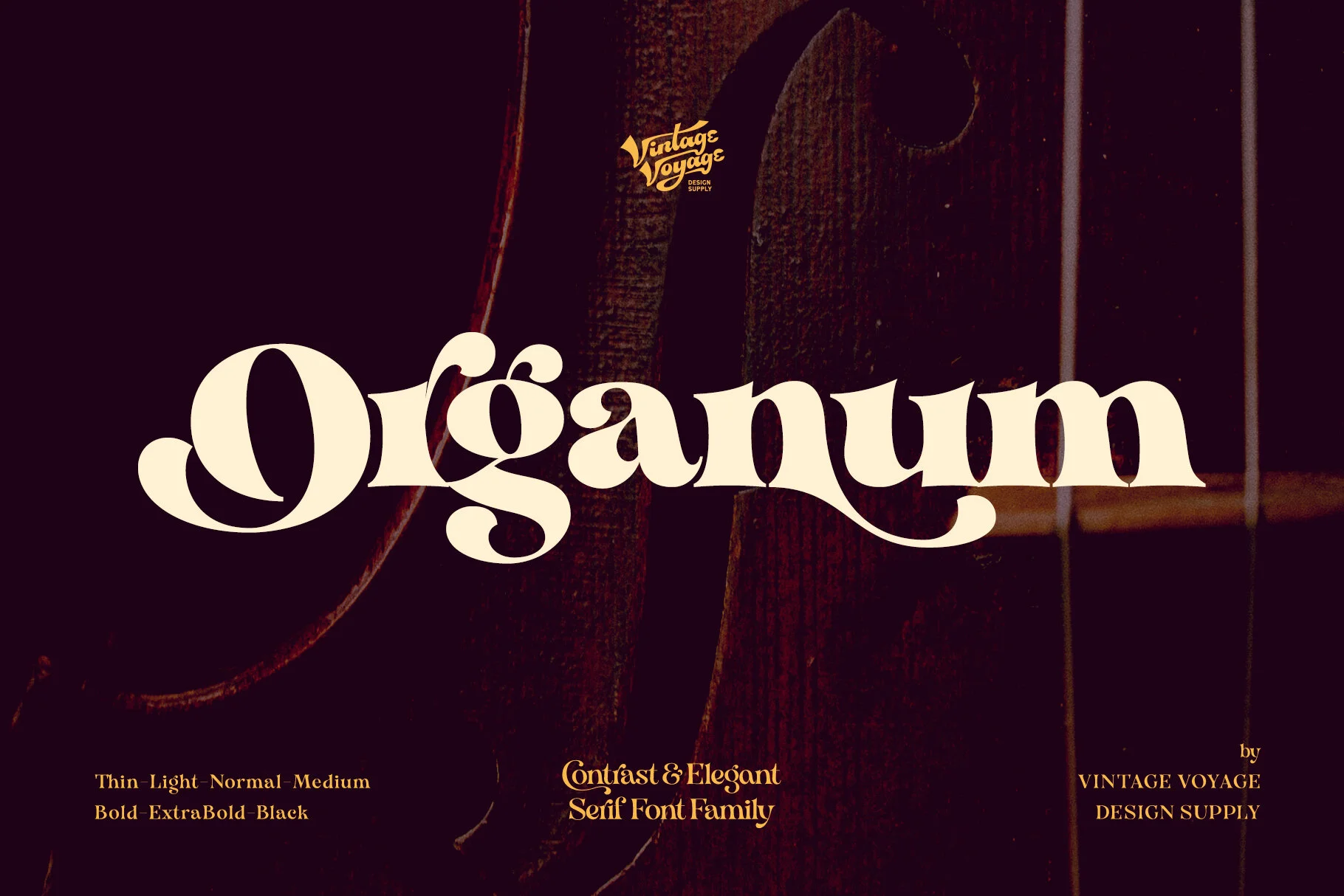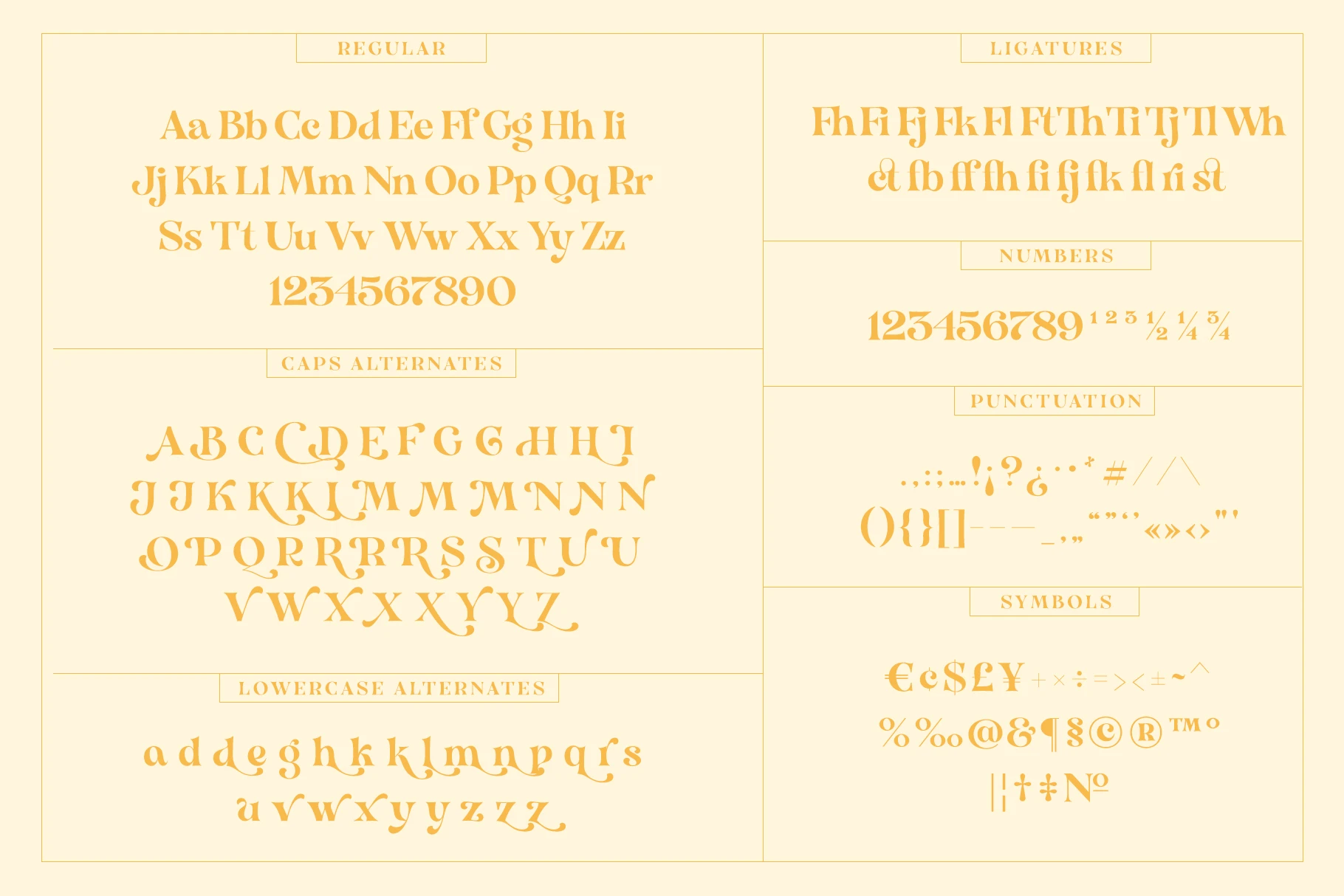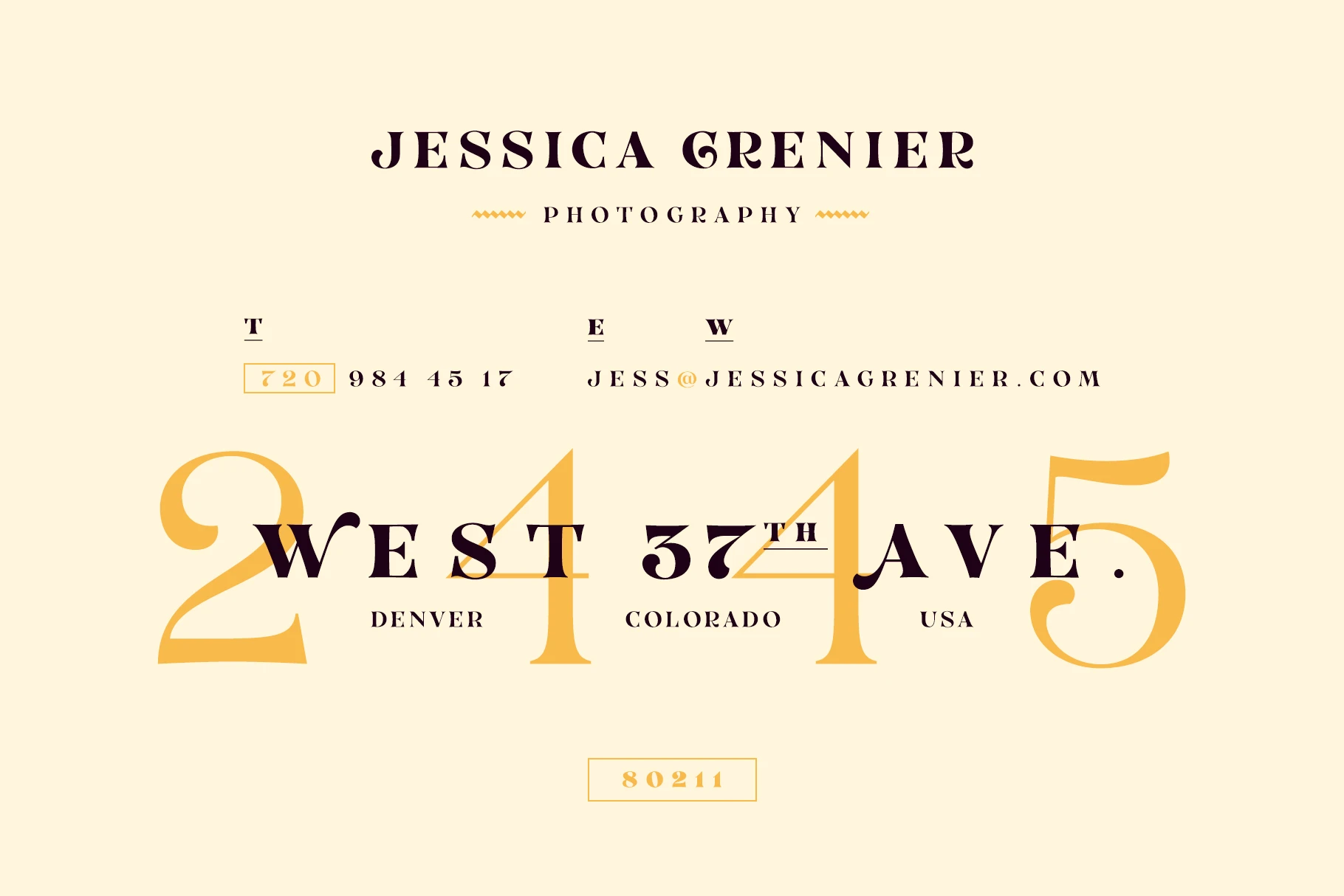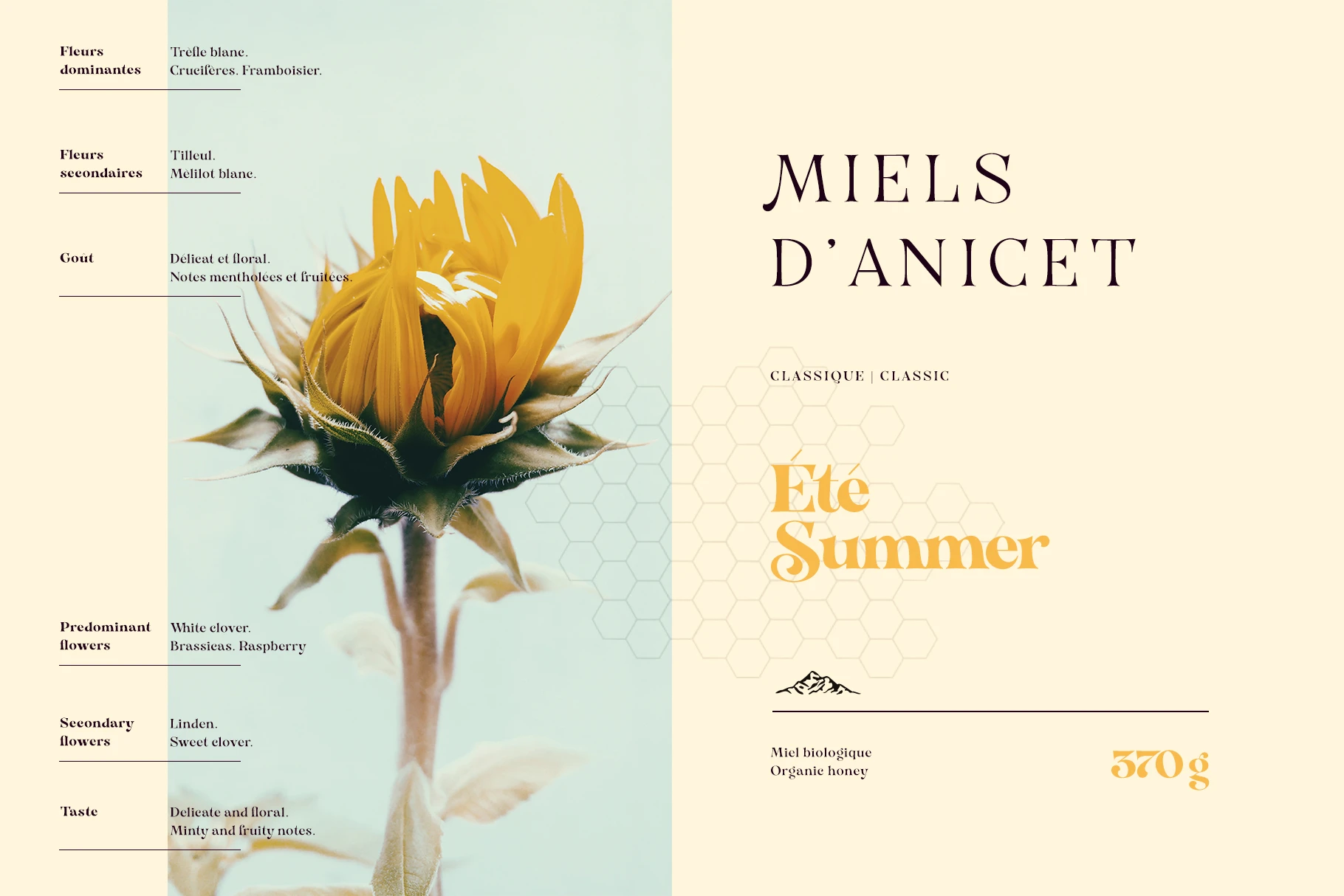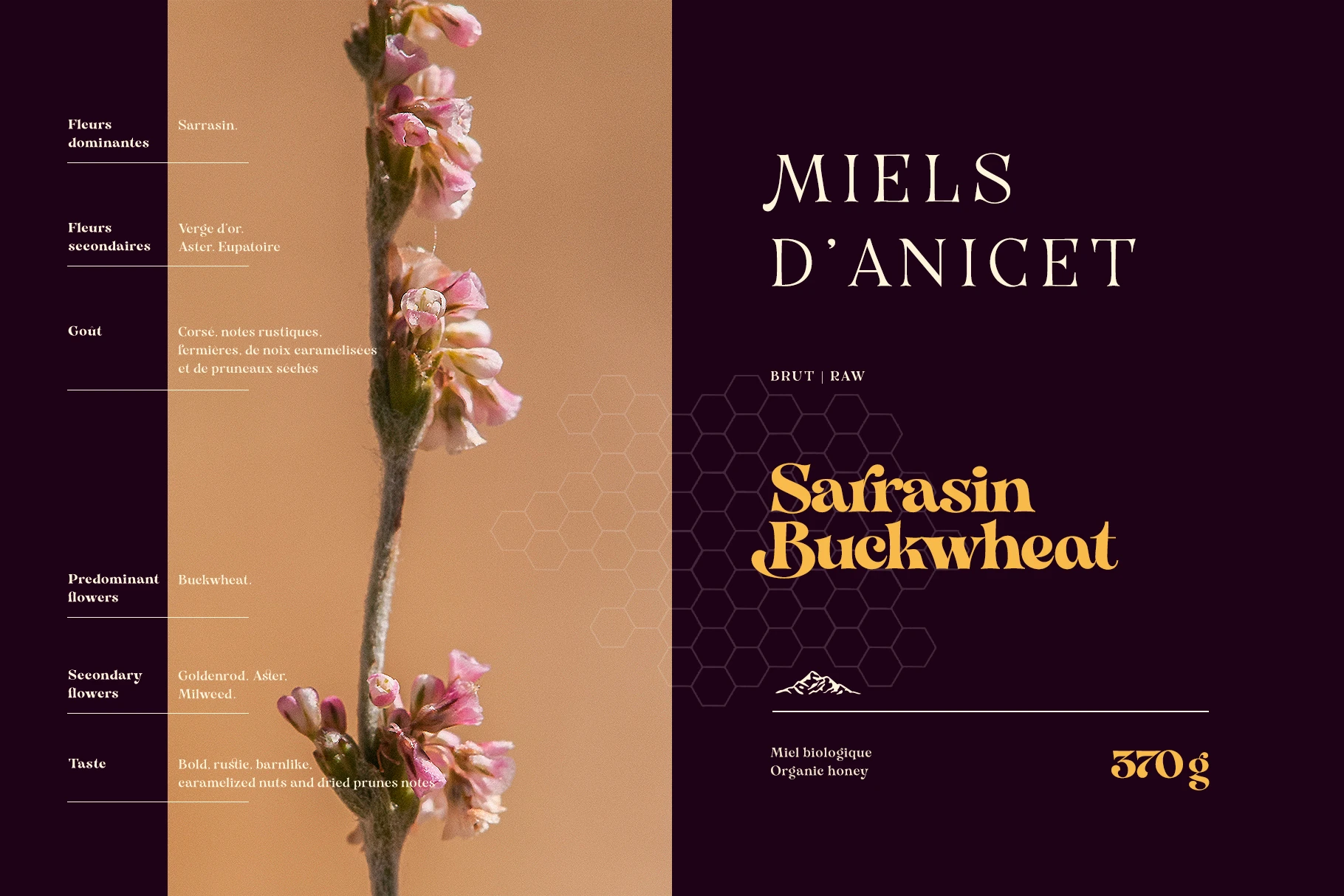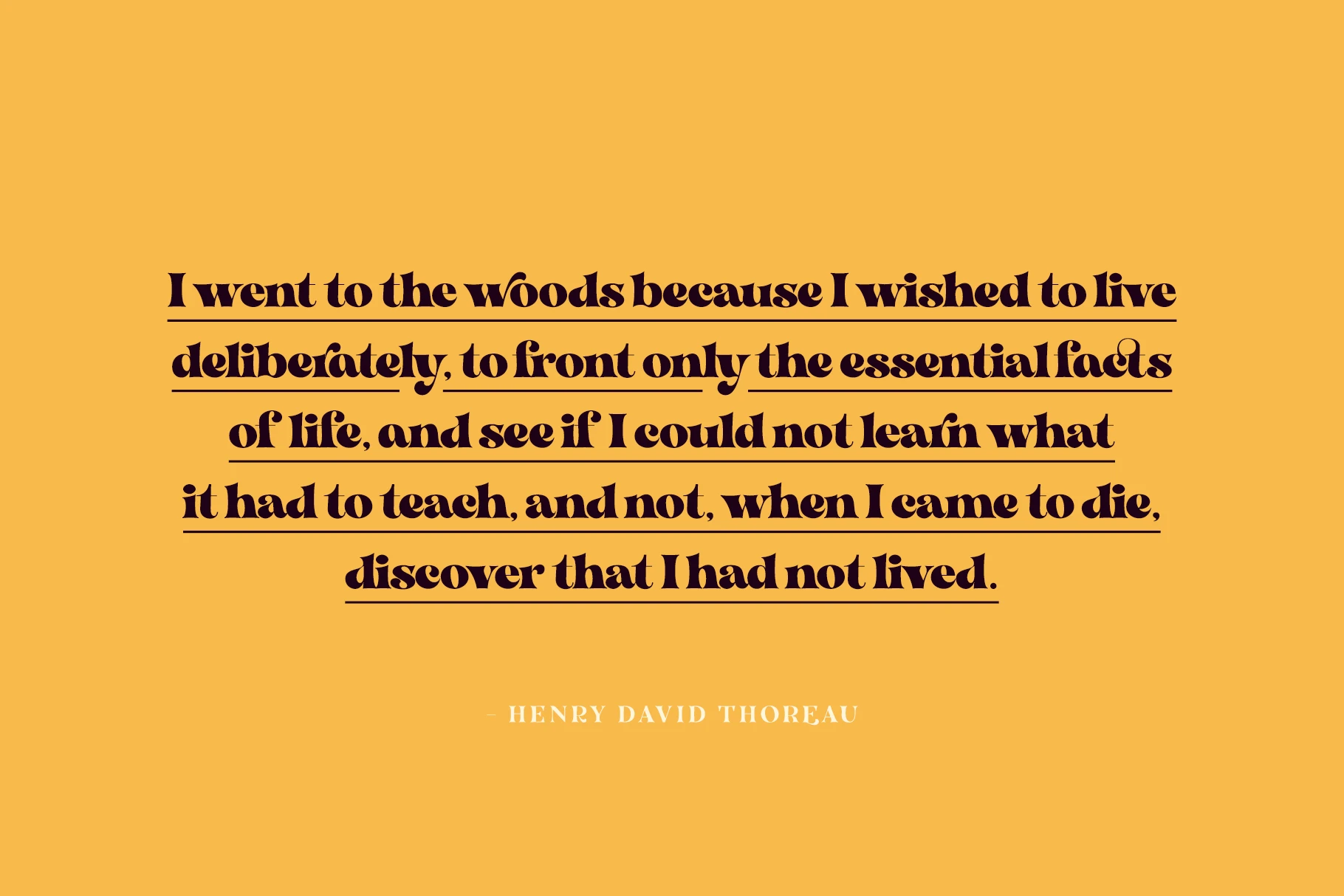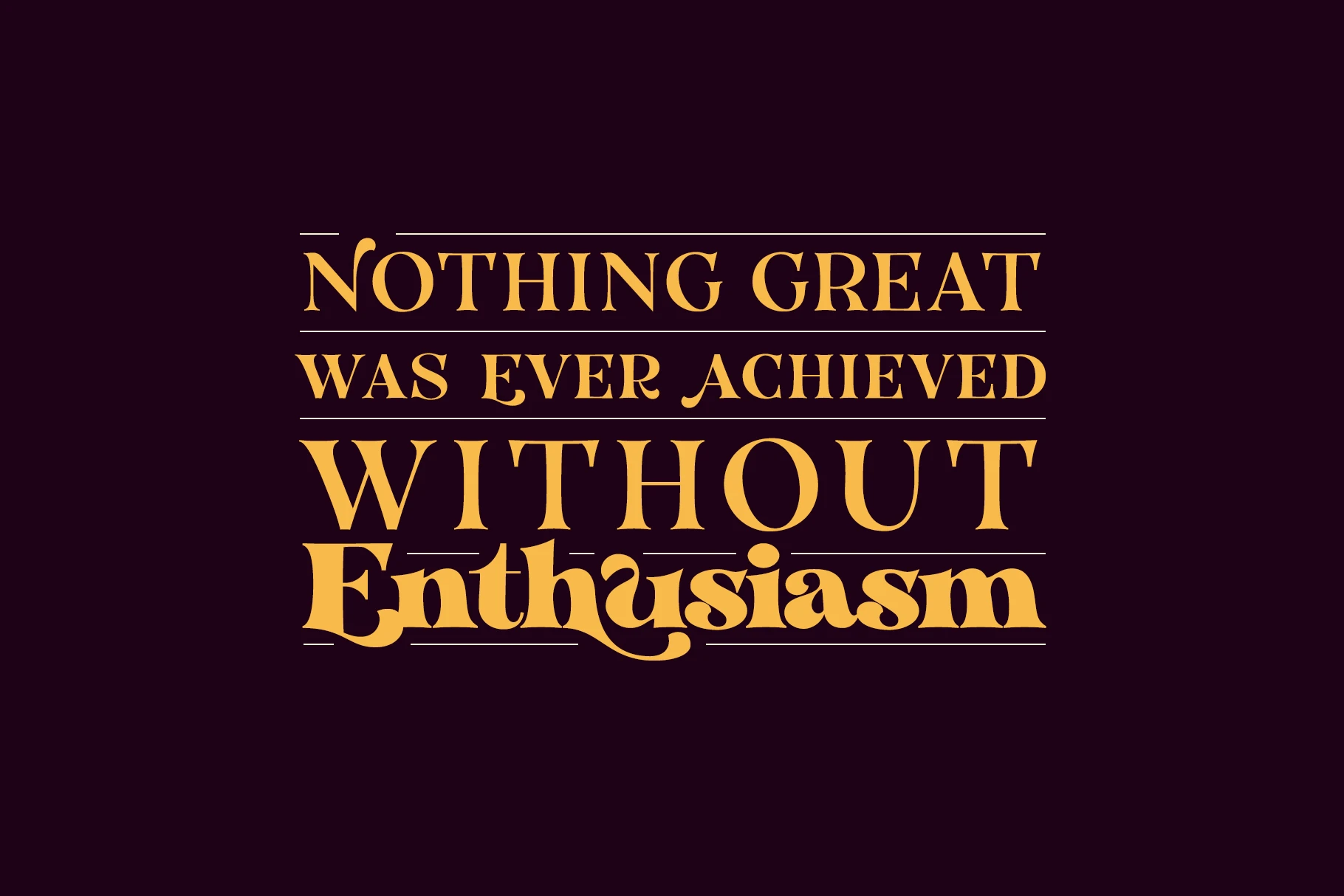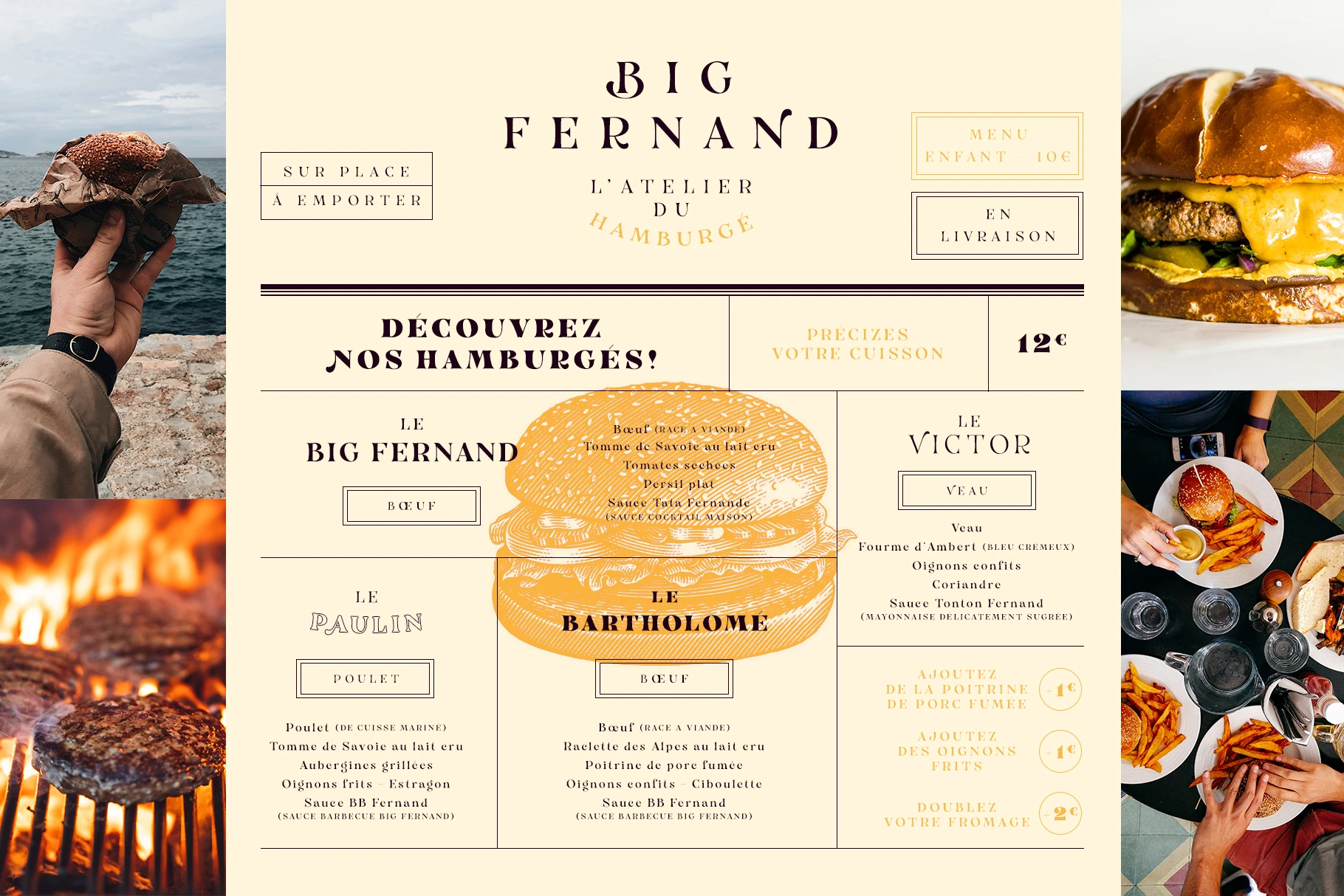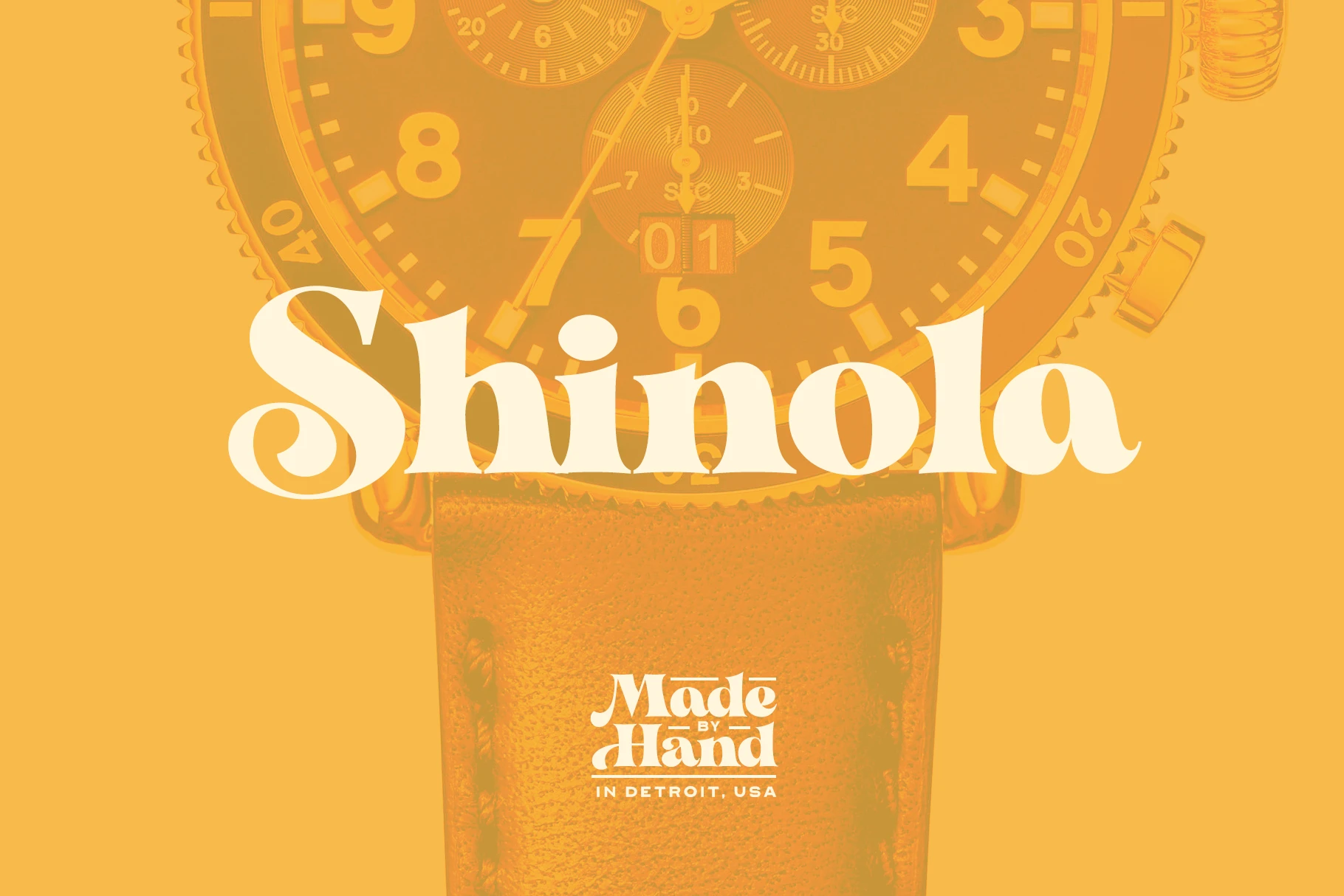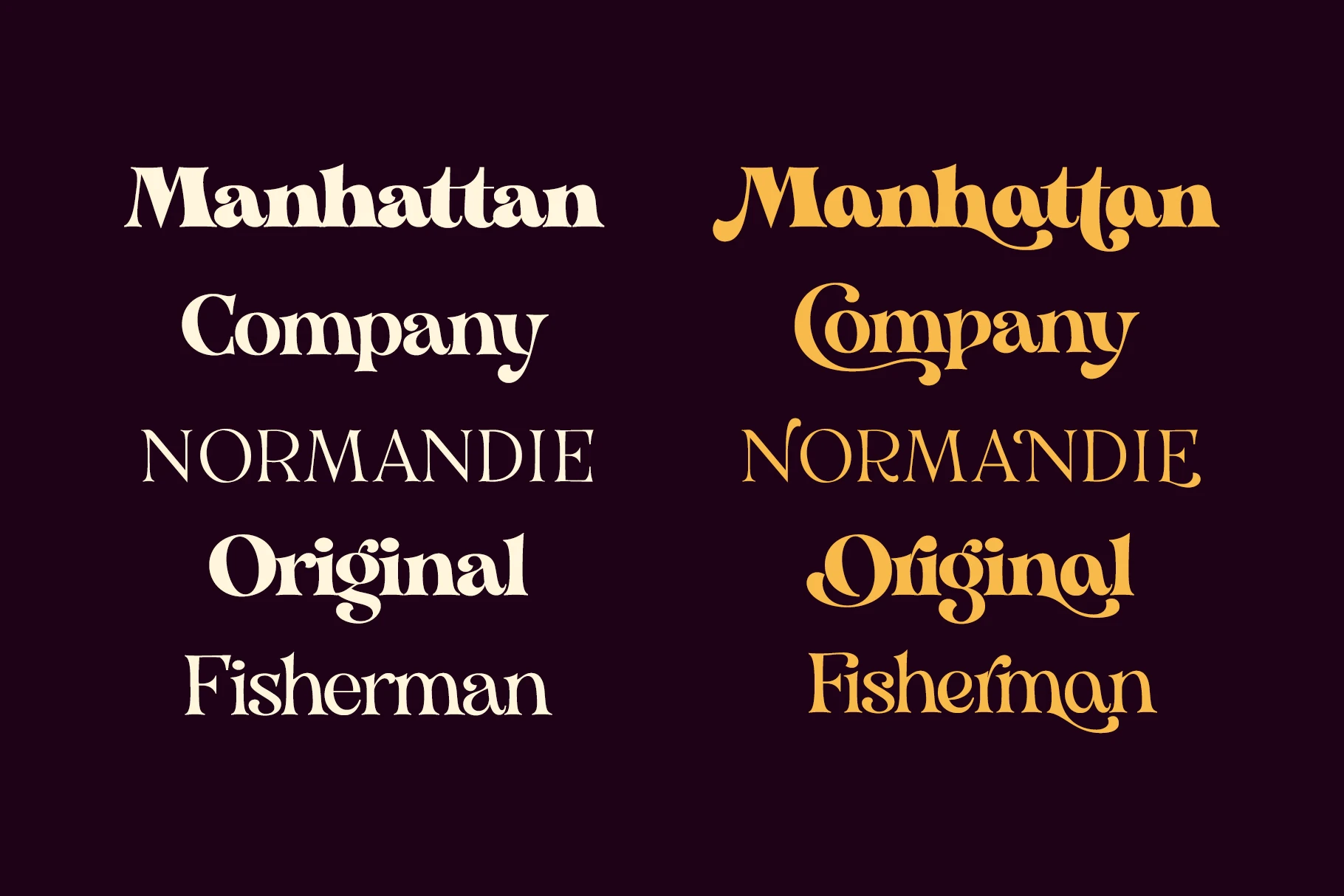
Organum • 7 styles
Organum is an elegant serif font family with contrasting vertical and horizontal strokes. Offers a range of weights, from Thin to Black, to suit various design needs. All-caps styling gives a classic Didone look, while mixed case creates a more playful, modern feel. Normal and Medium widths work well for text blocks, while the extremes bring impact to headlines. Each letter pairs naturally with the next, mimicking the flow of hand lettering. Suitable for minimal, refined layouts or bold, typographic designs. Includes discretionary ligatures and stylistic alternates for added individuality.
• Common Ligatures
• Fractions
• Ordinal Numerals
• Stylistic Alternates
• Stylistic Sets
• Superscript